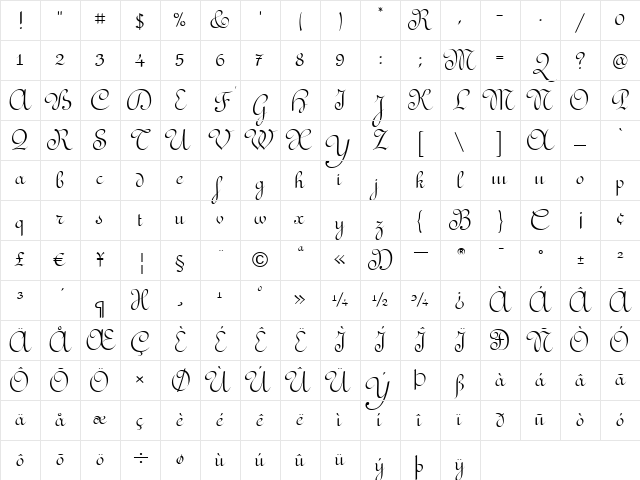
RedondaITC Regular
Design Context for RedondaITC
RedondaITC is a composed and adaptable typeface that performs quietly and consistently across a wide range of design contexts.